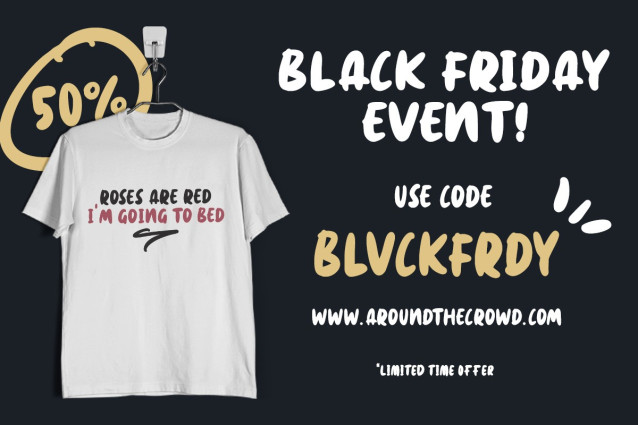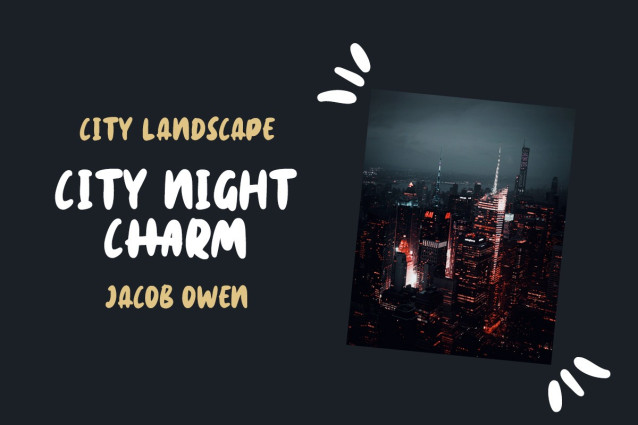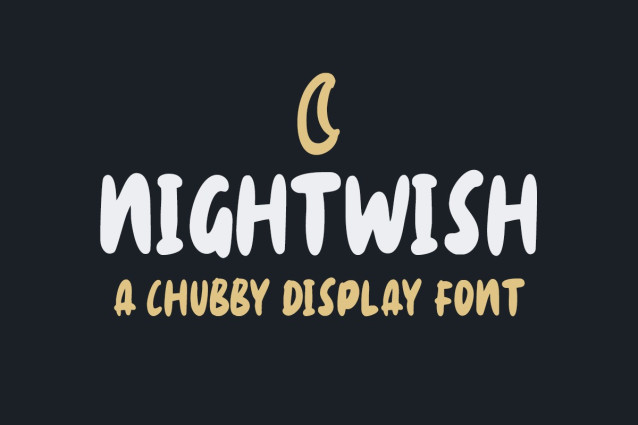
Nightwish Font
Nightwish Font is a chubby display font that fit perfectly into a cute and playful design such as branding, packaging, logotype, logo, quotes, children books, etc.